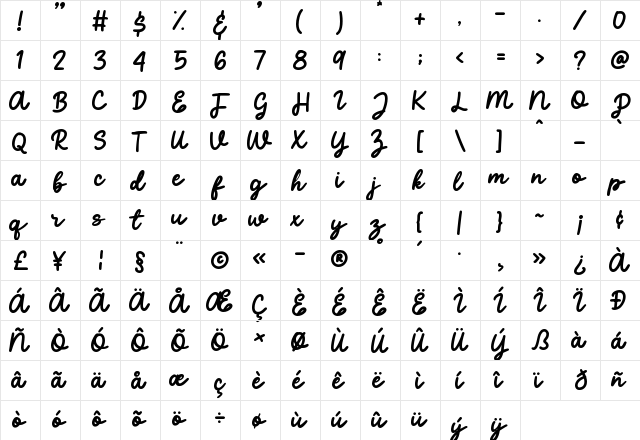
Eighties Regular Font Preview
Eighties Regular
Eighties Regular Font Details
| Designer | Dimas Prasetyo |
Design Context for Eighties Typeface
Eighties is a composed and adaptable typeface that performs quietly and consistently across a wide range of design contexts.